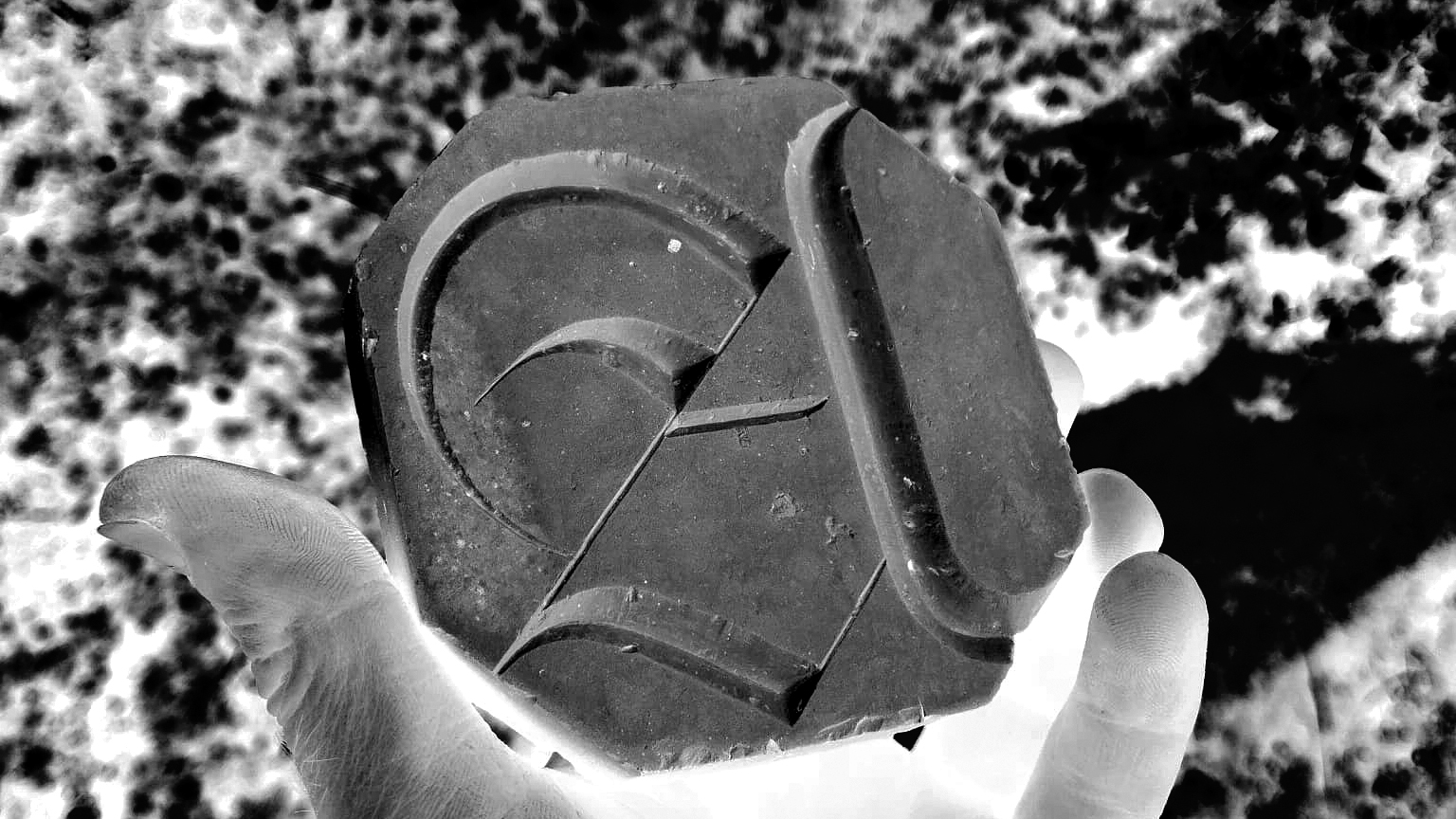
Cachemire — 10 Styles
In a sea of sans-serifs and revivals, Cachemire feels like a confident shift—a font that honours its lineage without getting stuck in the past. It’s moody, flexible, and just the right amount of intense.
Designer
NBR — Bastien Sozeau